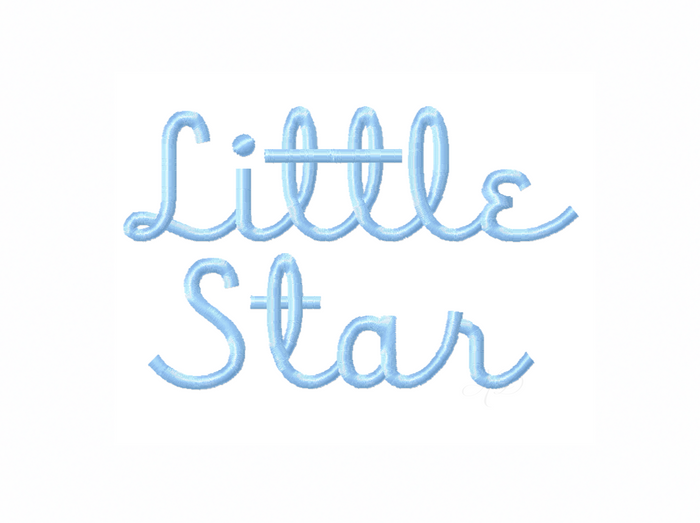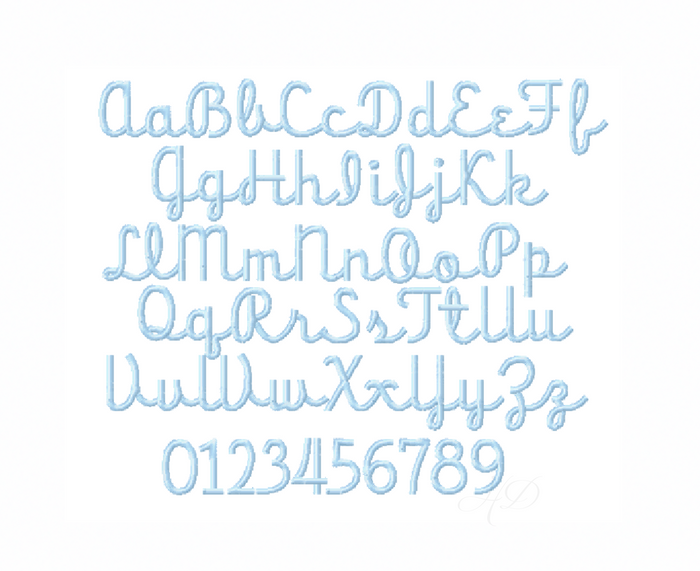
Little Star Satin Script Font
The Little Star Satin Stitch Embroidery font is a satin stitch embroidery font in letters uppercase and lowercase A-Z as well as numbers 0-9.